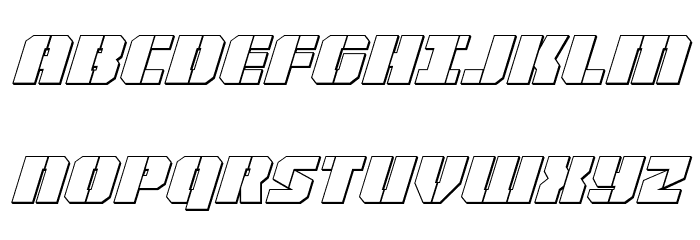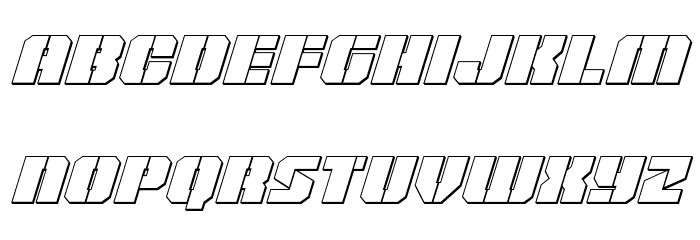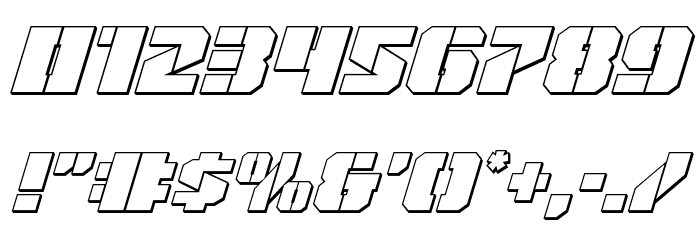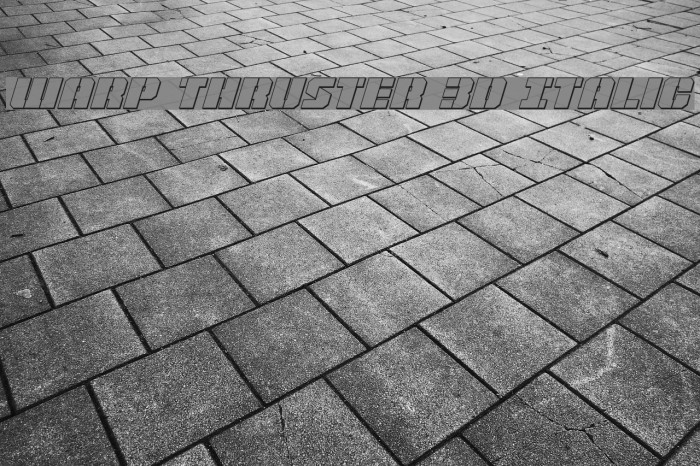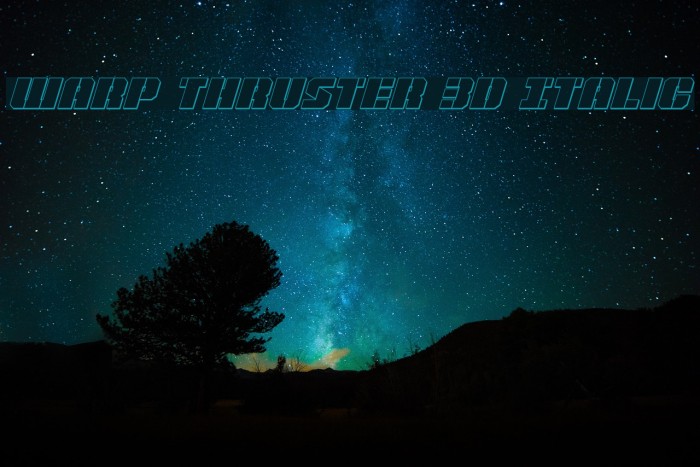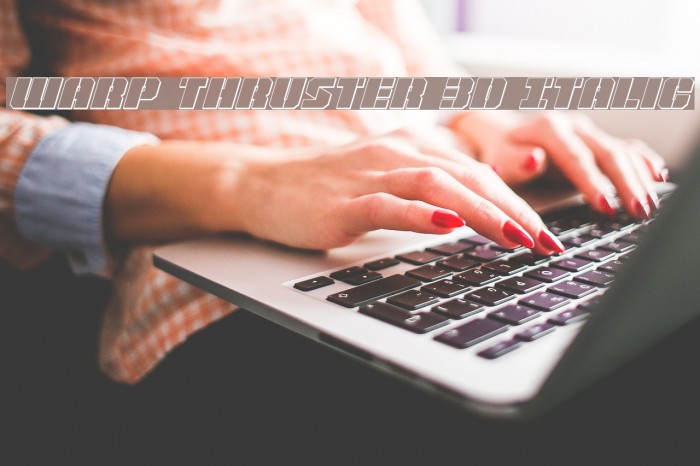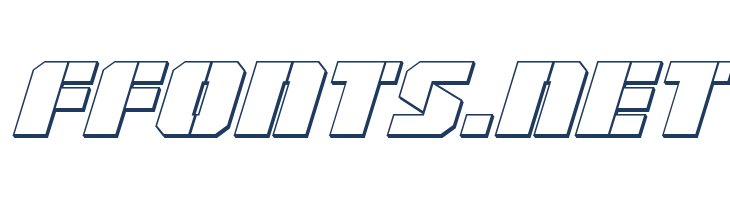
Warp Thruster 3D Italic Font
This font features a bold, futuristic design with a distinct 3D effect. The characters are italicized, giving them a dynamic and forward-leaning appearance. Each letter is outlined, creating a hollow effect that enhances the three-dimensional look. The geometric shapes and sharp angles contribute to a modern and tech-inspired aesthetic. The font maintains consistent proportions across uppercase, lowercase, and numerical characters, ensuring readability while retaining its unique style. Special characters are also designed to match the overall theme, making it suitable for creative and innovative projects.
A bold, 3D italic font with a futuristic and tech-inspired design.
- Proposed Projects: Ideal for sci-fi themed posters, video game titles, tech company logos, and futuristic branding materials.
- Overall Style: Futuristic